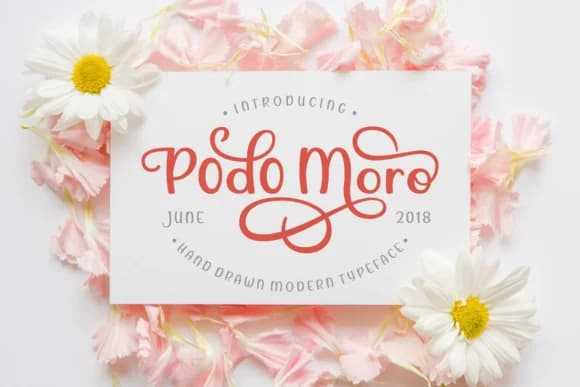
Podo Moro by Rifki is a hand-drawn modern script that brings organic charm to contemporary design work. With its flowing, expressive letterforms, this typeface strikes a balance between casual authenticity and polished sophistication. The design captures the essence of careful hand-lettering while maintaining the consistency needed for professional applications, making it equally suitable for personal and commercial projects.
This versatile script excels in creating custom wedding invitation suites with a personal touch, especially for couples seeking alternatives to heavily stylized or overly formal fonts. Boutique businesses also find success using Podo Moro for logo designs and brand identity materials that need to feel handcrafted and approachable. The typeface translates beautifully to handmade product labels for small-batch cosmetics or artisan goods, adding authenticity that resonates with conscious consumers. Social media graphics and promotional content benefit from its distinctive character, helping brands stand out in crowded feeds while maintaining readability at various sizes.
Podo Moro's consistent letter spacing and well-balanced strokes make it accessible for a wide range of design applications. Whether you're developing a cohesive visual identity or creating one-off creative pieces, this font delivers the warmth of handwritten text with reliable technical performance. Discover how Podo Moro can enhance your creative projects by grabbing it from Creative Fabrica today.
Podo Moro Font is a script font that shines as a display or heading face. Pair it with a clean sans-serif or serif font for body text β the contrast creates a clear hierarchy while the two styles stay balanced and easy to read.